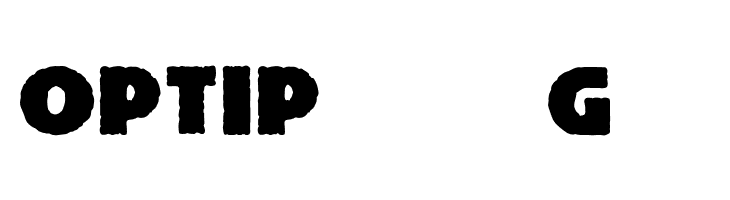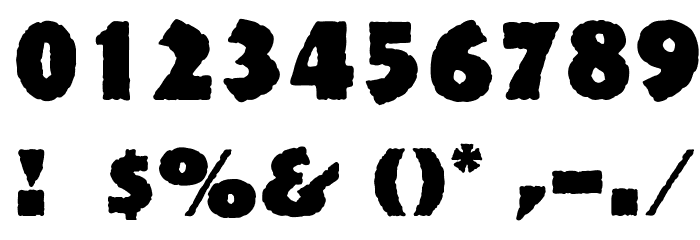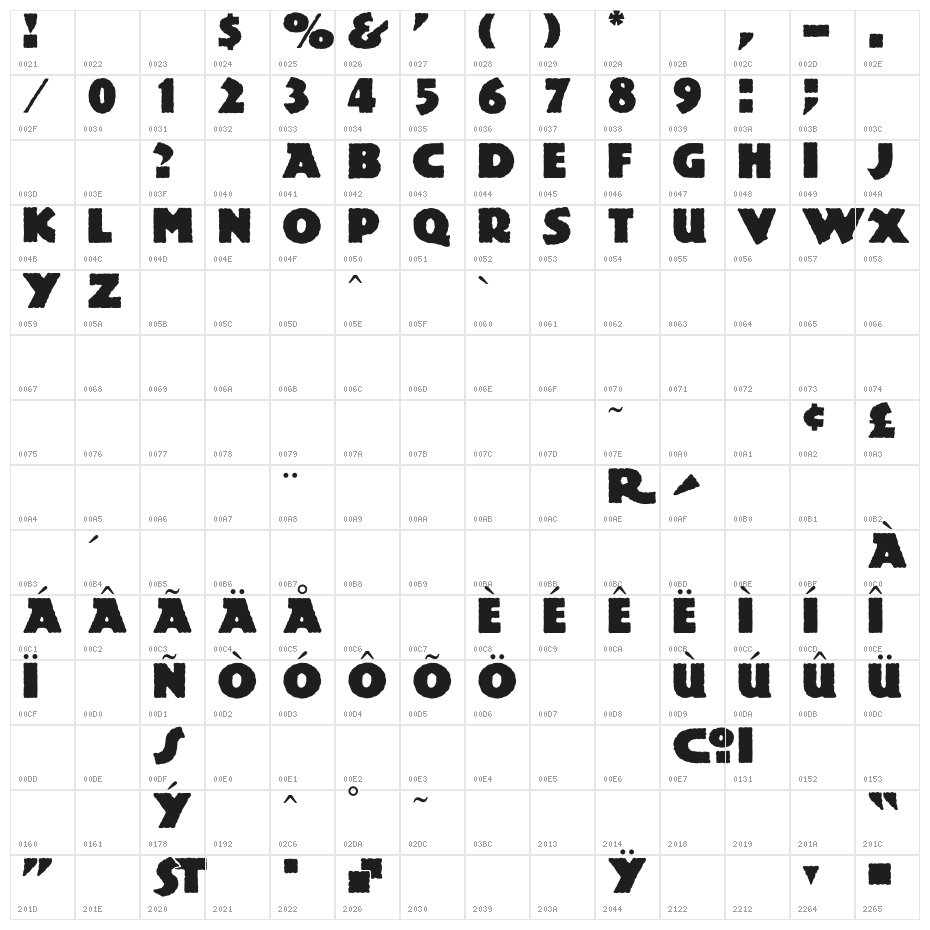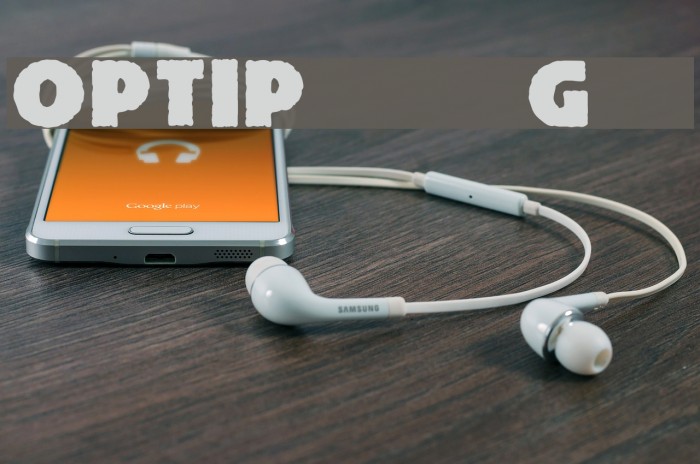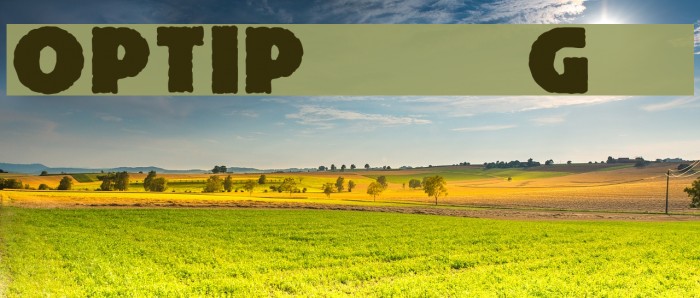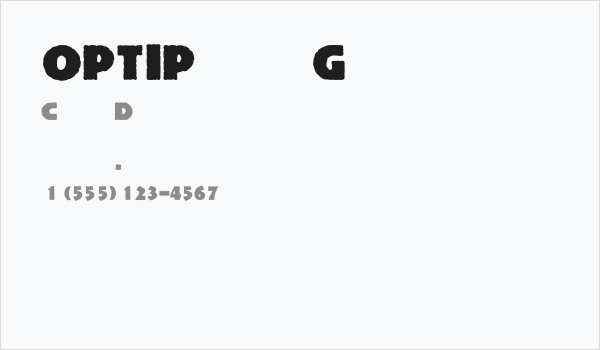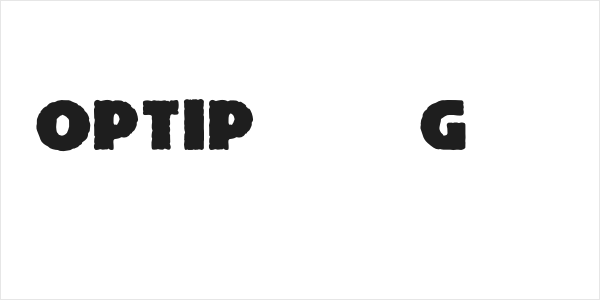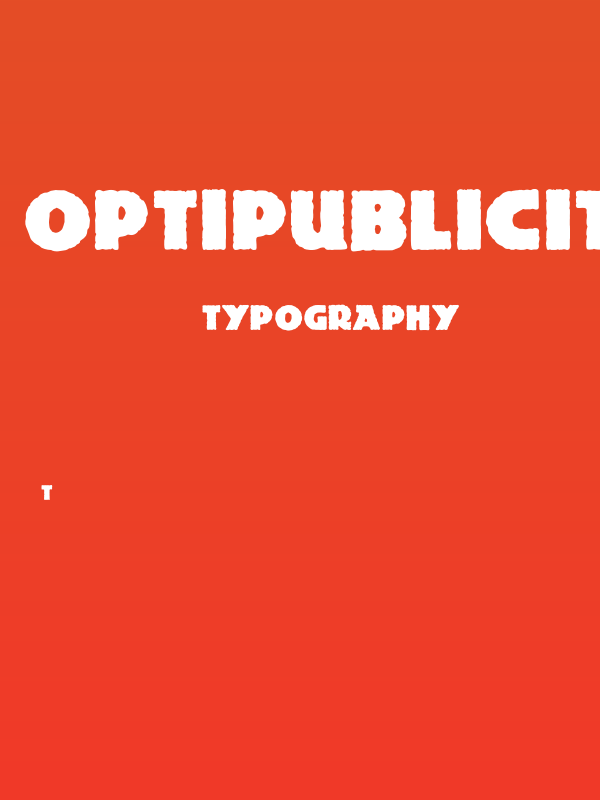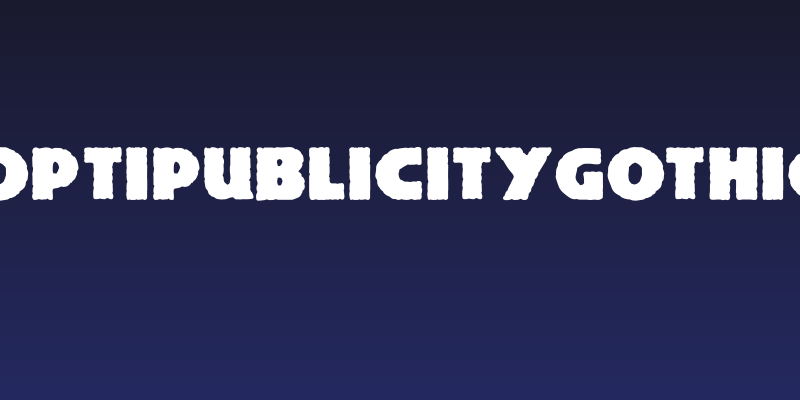
OPTIPublicityGothic Font
OPTIPublicityGothic Description
This font features bold, chunky letters with a distressed, textured appearance, giving it a vintage and rugged feel. The uppercase letters are uniform in height and width, creating a strong visual impact. The numbers and special characters maintain the same bold style, ensuring consistency across all glyphs. The font's unique texture adds character, making it stand out in any design. Its boldness and distinct style make it ideal for attention-grabbing headlines and display purposes.
| Proposed Projects | Ideal for vintage-themed posters, logos, and branding materials that require a strong, eye-catching typeface. |